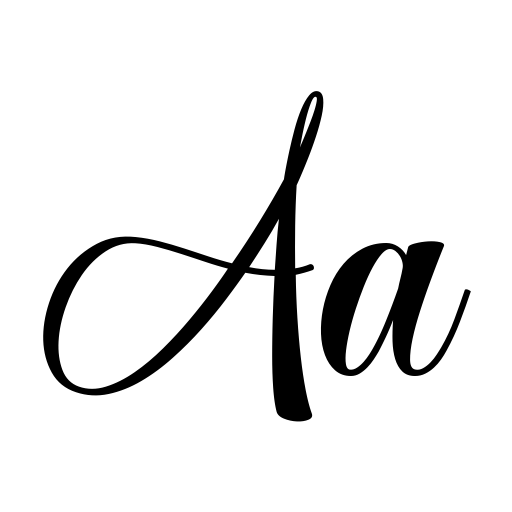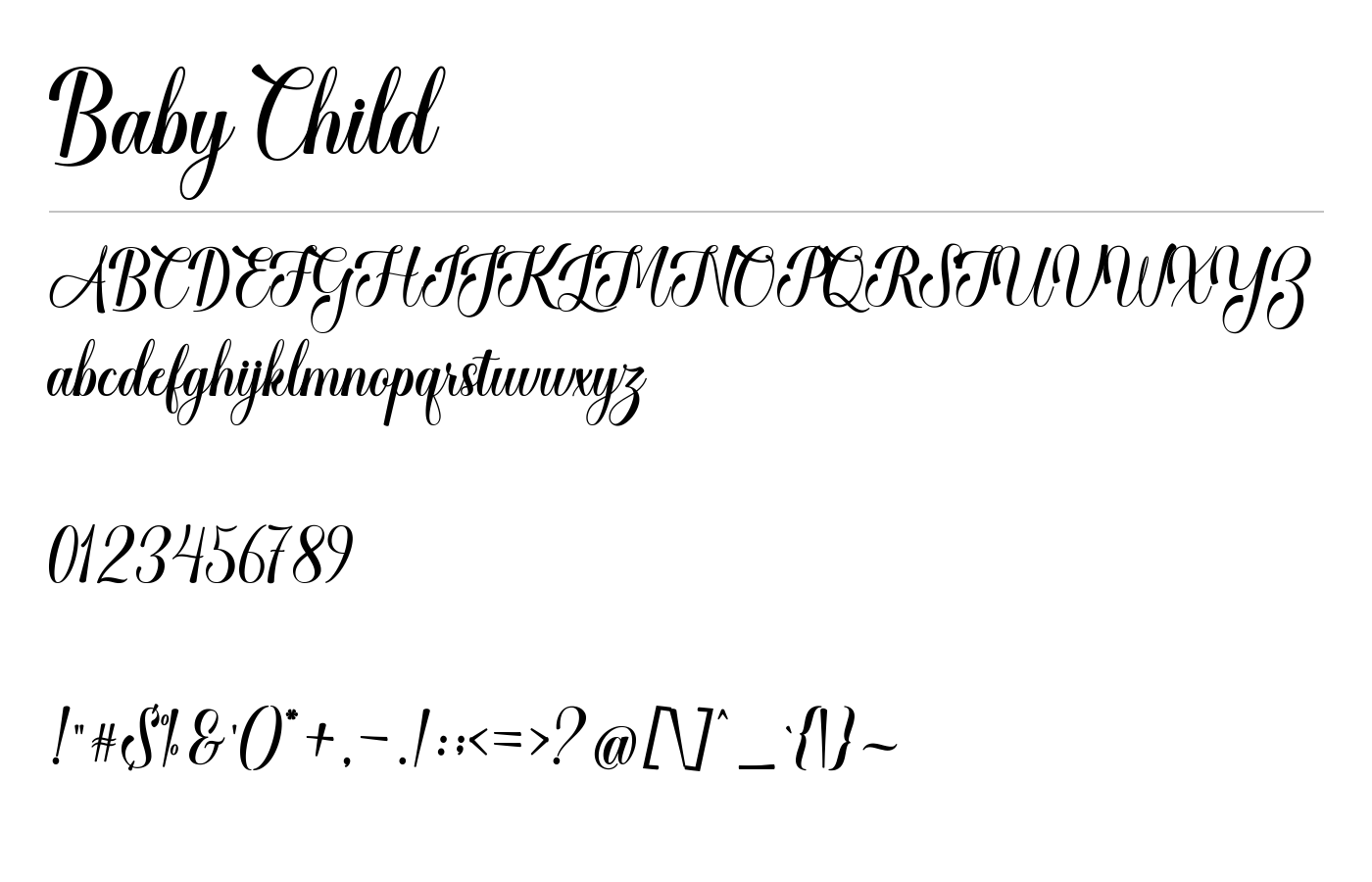
Baby Child is an elegant script font featuring smooth, flowing letterforms with high contrast between thick and thin strokes, giving it a graceful and stylish feel. Its tall x-height and delicate curves make it perfect for sophisticated branding, invitations, and headlines where a touch of refinement and charm is desired. This font shines in fashion, luxury, and editorial designs that seek to convey warmth and elegance with a modern twist.
Baby Child Font
About Baby Child Font
| Font family | Baby Child Font |
| Designer | RIZKI ANDIKA |